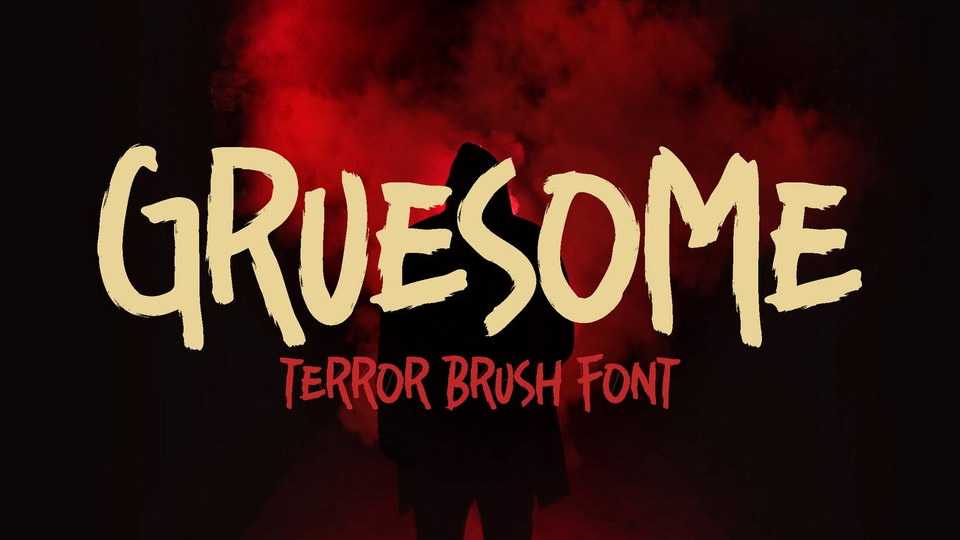
Download Gruesome font, a hand lettered typeface that creates terror in everything it is written. The rough and jagged brush texture, emphasize the scream of the scared audiences.